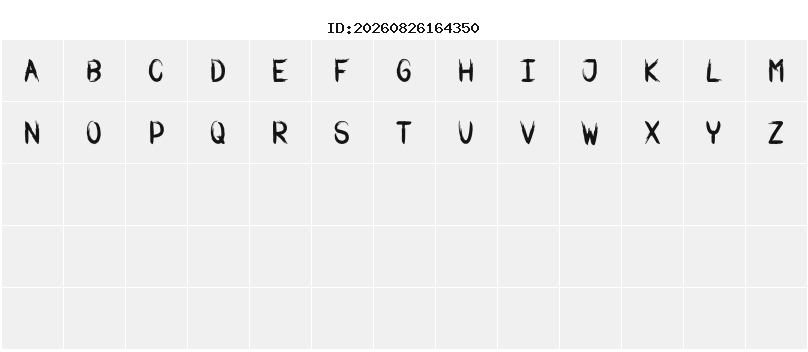
WAR BRUSH Preview
• Font Name: WAR BRUSH
• Designer: dcoxy Medina Gregory
About WAR BRUSH.ttf
WAR BRUSH.ttf is a modern, elegant sans-serif font designed for ultimate readability and visual harmony. Perfect for branding, headlines, web design, and print materials.